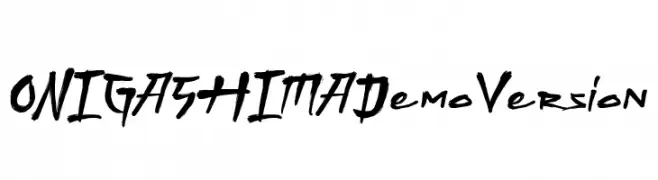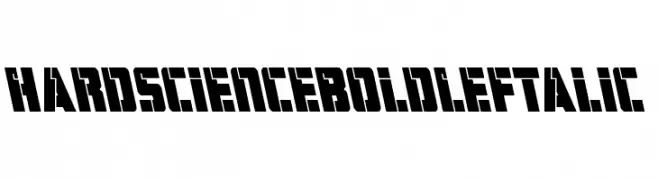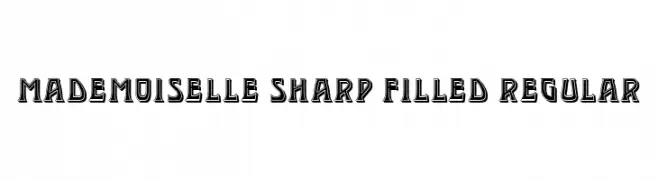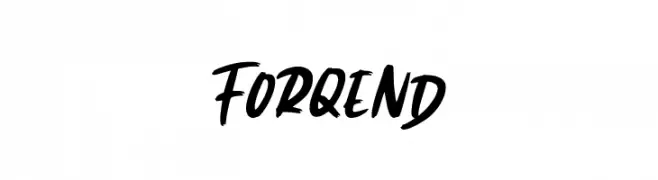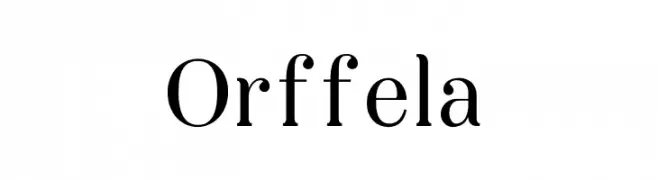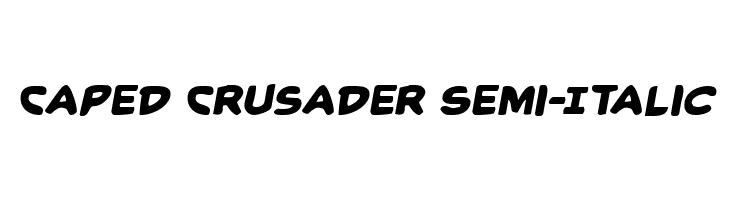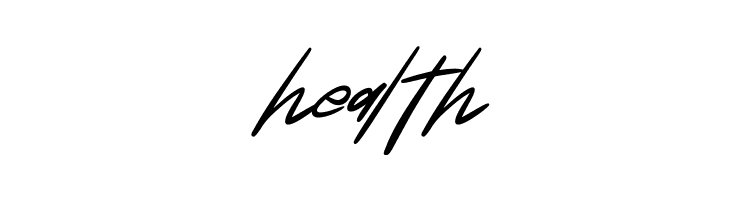
A decorative font with characters enclosed in heart shapes, ideal for romantic themes.
A dynamic, edgy font with sharp, angular strokes and a graffiti-like style.
A bold, left-leaning font with sharp, geometric shapes and a futuristic style.
A bold, sharp-edged decorative font with a vintage-modern blend.
A bold, rounded decorative font with a playful and engaging style.
A bold, dynamic script font with fluid, energetic strokes.
A sophisticated script font with flowing, ornate letters and elegant swashes.
A playful, handwritten font with a whimsical and flowing style.
A classic serif font with elegant strokes and subtle curves, ideal for sophisticated designs.
A bold, italicized sans-serif font with a modern and dynamic style.